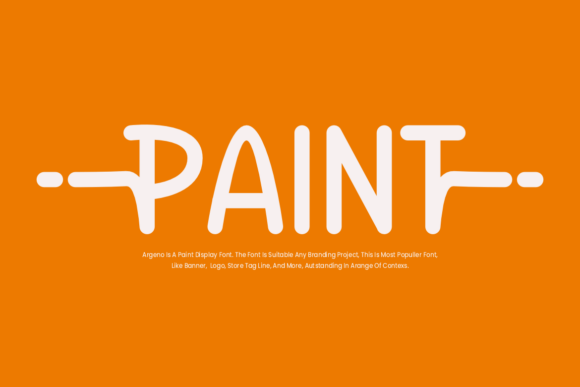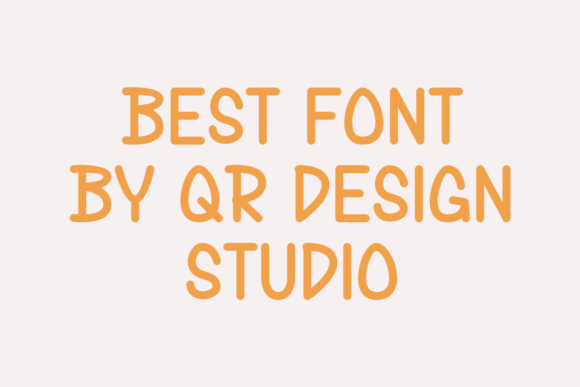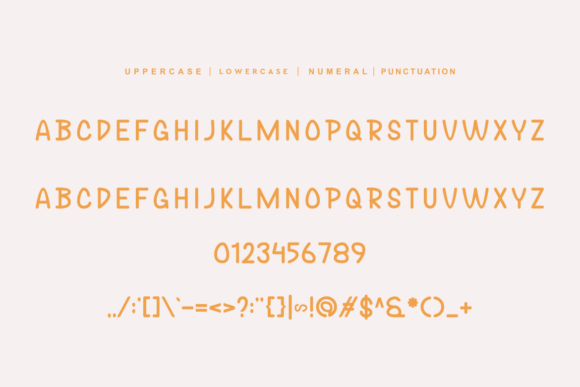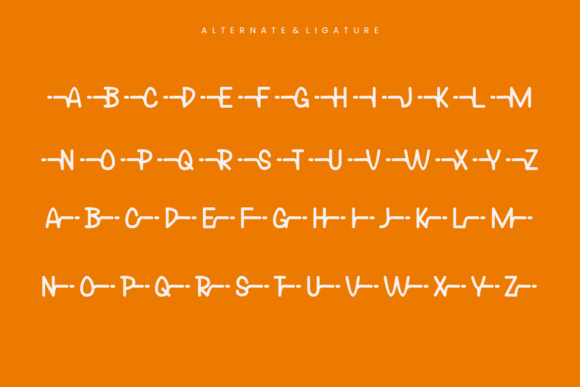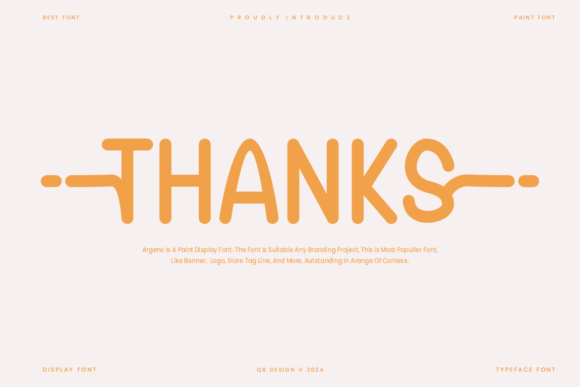
Introducing Argeno Font: The Sweet and Friendly Handwritten Font for Your Creative Projects
Are you a designer, crafter, or DIY enthusiast looking for a font that can add a personal touch to your projects? Look no further than Argeno Font, a sweet and friendly handwritten font that’s perfect for a wide range of designs. With its natural and unique style, Argeno Font is incredibly versatile and can be used in various creative projects, from digital designs to handmade crafts.
The Characteristics of Argeno Font
Argeno Font is a handwritten font that exudes warmth and friendliness. Its natural and unique style makes it stand out from other fonts, and its sweetness is sure to capture the hearts of your audience. The font’s characteristics include:
- Handwritten style: Argeno Font is a genuine handwritten font, giving it a personal and authentic feel.
- Natural and unique: The font’s natural and unique style makes it perfect for designs that require a touch of personality.
- Versatile: Argeno Font can be used in a wide range of designs, from digital designs to handmade crafts.
- Easy to read: Despite its handwritten style, Argeno Font is easy to read, making it perfect for body text and headings.
What Can You Use Argeno Font For?
The possibilities are endless when it comes to using Argeno Font. Here are some ideas to get you started:
- Digital designs: Use Argeno Font in your digital designs, such as social media graphics, blog posts, and website headers.
- Handmade crafts: Add a personal touch to your handmade crafts, such as cards, invitations, and scrapbooking projects.
- Branding and packaging: Use Argeno Font to create unique and eye-catching branding and packaging designs.
- Signage and display: Use Argeno Font for signage and display purposes, such as store signs, banners, and posters.
Why Choose Argeno Font?
There are many fonts available, but Argeno Font stands out from the rest. Here are some reasons why you should choose Argeno Font for your next project:
- Unique style: Argeno Font has a unique and natural style that will set your designs apart from others.
- Versatile: Argeno Font can be used in a wide range of designs and projects.
- High-quality: Argeno Font is a high-quality font that’s perfect for professional designs.
Tips for Using Argeno Font
Here are some tips for using Argeno Font in your designs:
- Use it as a headline font: Argeno Font is perfect for headlines and titles, so use it to grab attention.
- Pair it with other fonts: Argeno Font pairs well with other fonts, so experiment with different combinations to create a unique look.
- Use it for body text: Argeno Font is easy to read, so use it for body text to add a personal touch to your designs.
- Experiment with colors: Argeno Font looks great in different colors, so experiment with different colors to find the perfect one for your design.
Argeno Font is a sweet and friendly handwritten font that’s perfect for designers, crafters, and DIY enthusiasts. Its natural and unique style makes it incredibly versatile, and it can be used in a wide range of designs and projects. With its ease of use, high-quality, and unique style, Argeno Font is a great addition to any design project. So why wait? Download Argeno Font today and add a personal touch to your designs!